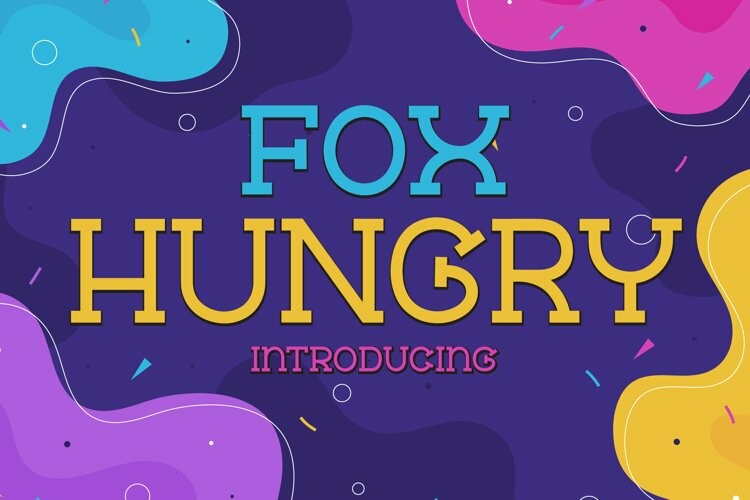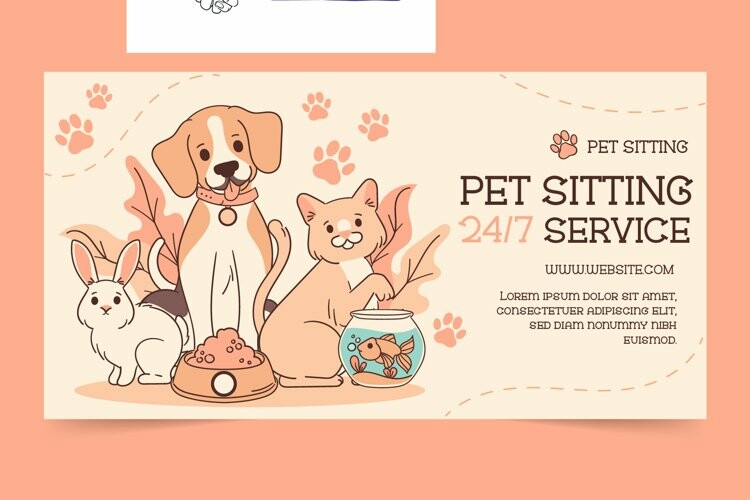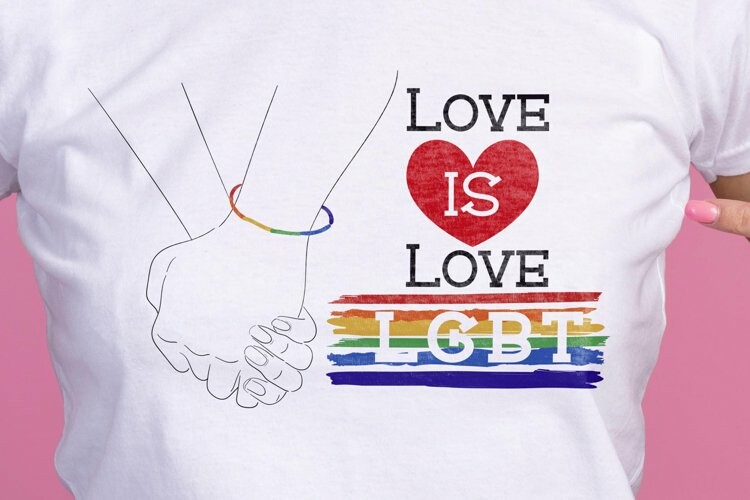
Fox Hungry Font
Fox Hungry FontFox Hungry is a cool, fun and easy to read slab serif font. No matter the topic, this font will be an incredible asset to your fonts’ library, as it has the potential to elevate any creation. Its cheerful vibe is suitable for kid-friendly designs, posters, wall art, stickers, nursery decorations, or festival valentines, mother’s day, and more!